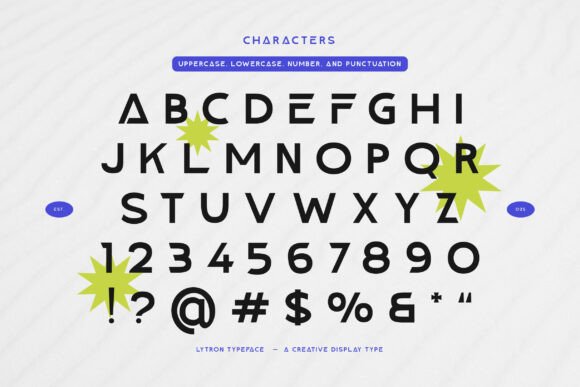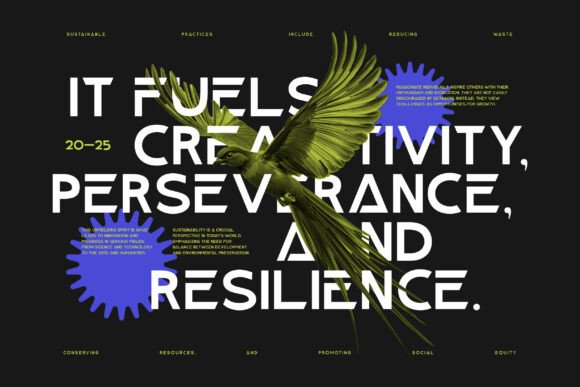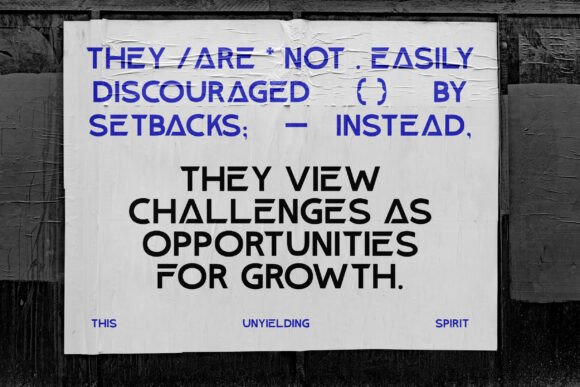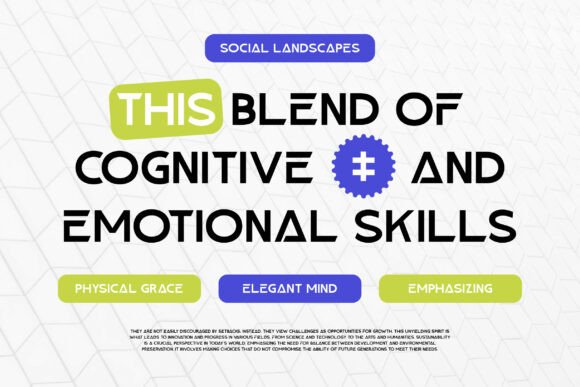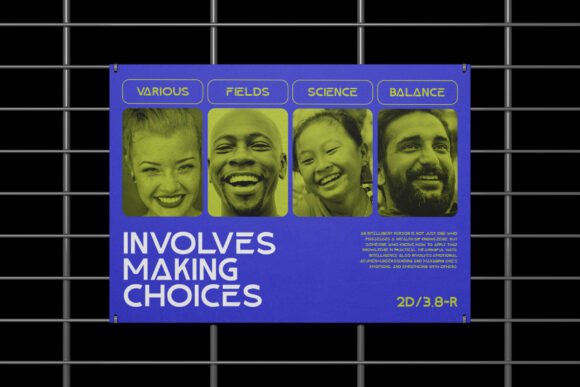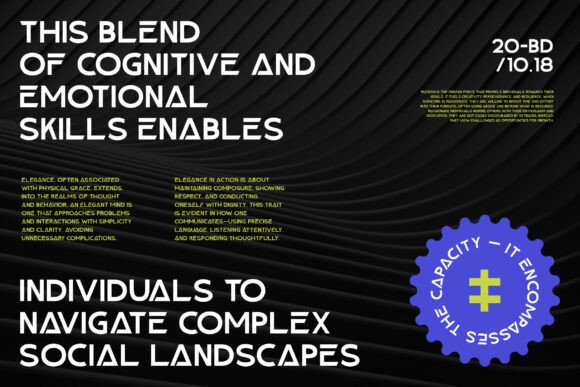
Introduction to Lytron Font
Have you ever stared at a blank canvas, eager to bring a new idea to life, only to be held back by the perfect font? The one that screams modernity, sophistication, and creativity? For designers, finding the right font can be a daunting task, but what if you stumbled upon a game-changer? Enter Lytron Font, a bold modern sans serif typeface that’s about to revolutionize your design projects.
With its strong geometric roots and contemporary edge, Lytron Font is the perfect companion for any creative project that demands high-quality visuals. Whether you’re working on a tech branding project, designing a user interface, or crafting a clean editorial layout, Lytron Font delivers sharp legibility and futuristic flair. Plus, with a full set of uppercase, lowercase, numerals, and punctuation, you’ll have everything you need to create stunning designs with a professional touch.
Key Features of Lytron Font
- High-quality design: The Lytron Font is crafted with attention to detail, ensuring a professional and polished look for any creative project.
- Unique characteristics: The Lytron Font features a unique blend of modern and vintage elements, making it perfect for designers looking for a distinctive look.
Honest Review: Lytron Font
I recently had the chance to work with the Lytron Font on a creative project and I must say it was a great experience. The font is perfect for those looking for a modern, clean, and sophisticated look for their design work. One of the standout features of the Lytron Font is its transparent background, which makes it incredibly versatile and easy to use.
- High-quality design that looks great on a variety of backgrounds
- Great resource for designers working on creative projects that require a modern touch
While the Lytron Font is overall a great design resource, there are a few limitations to be aware of:
- ⚠️ Limited font weight options (may require additional font purchases for more variety)
- ⚠️ Not ideal for projects that require a lot of bold typography